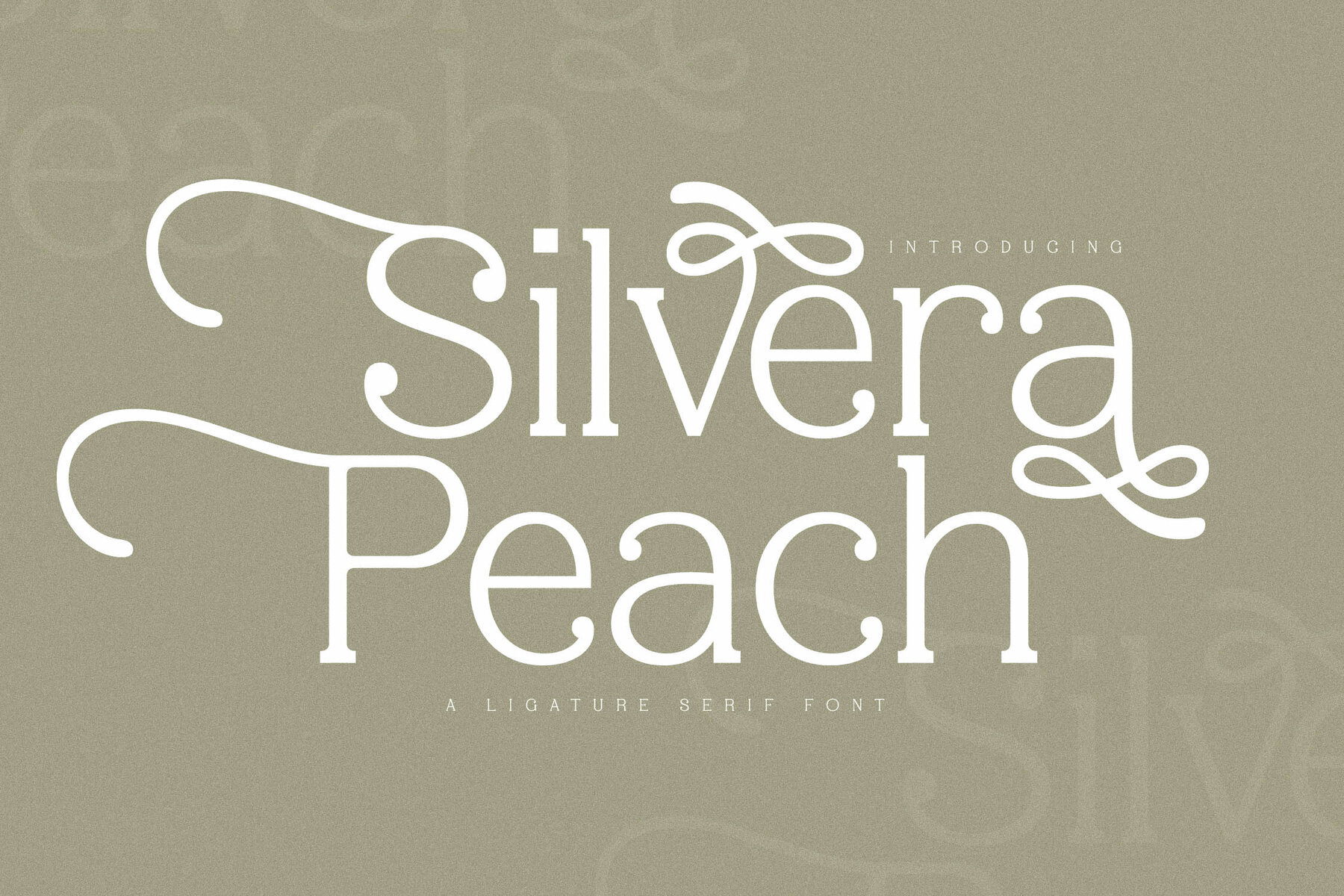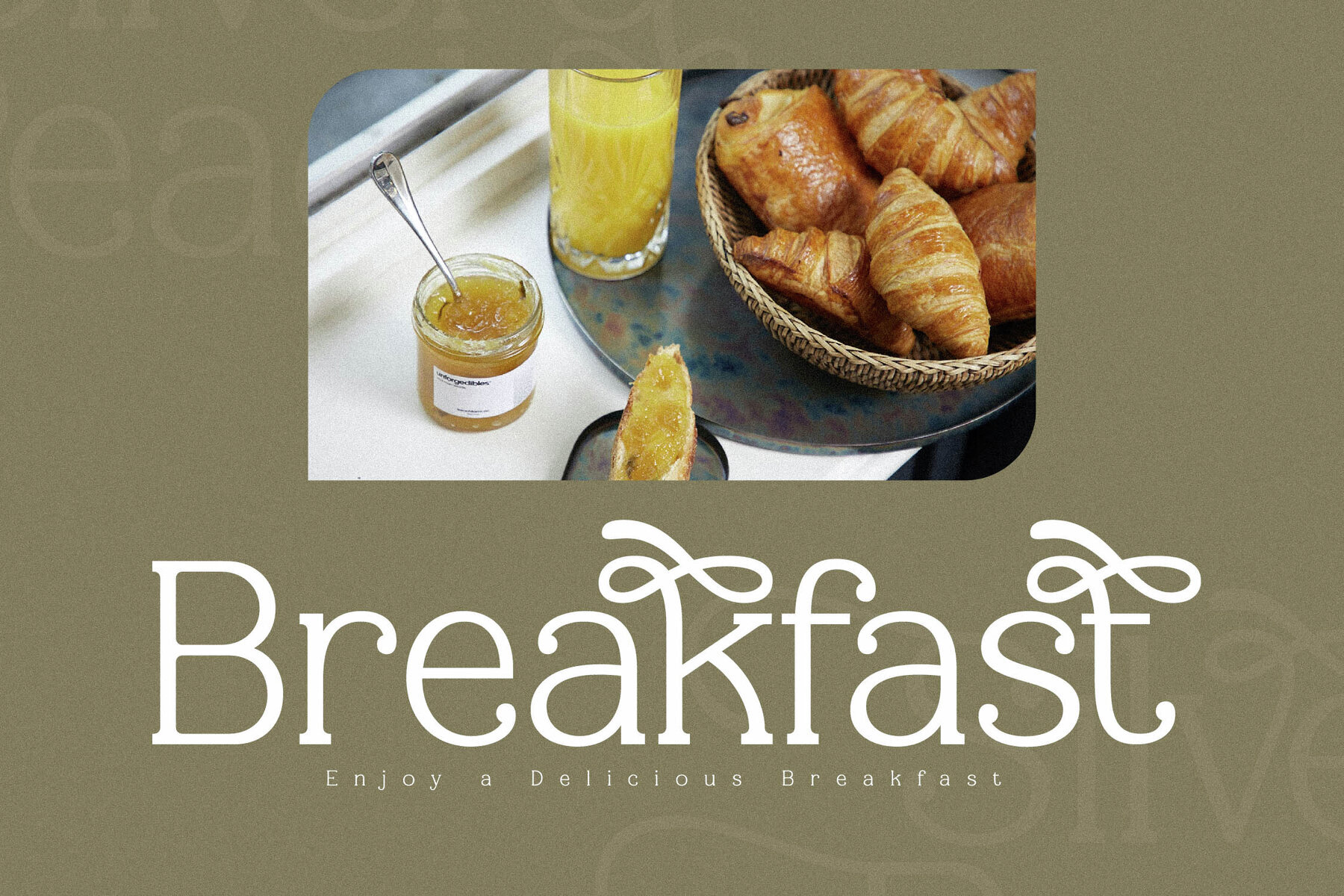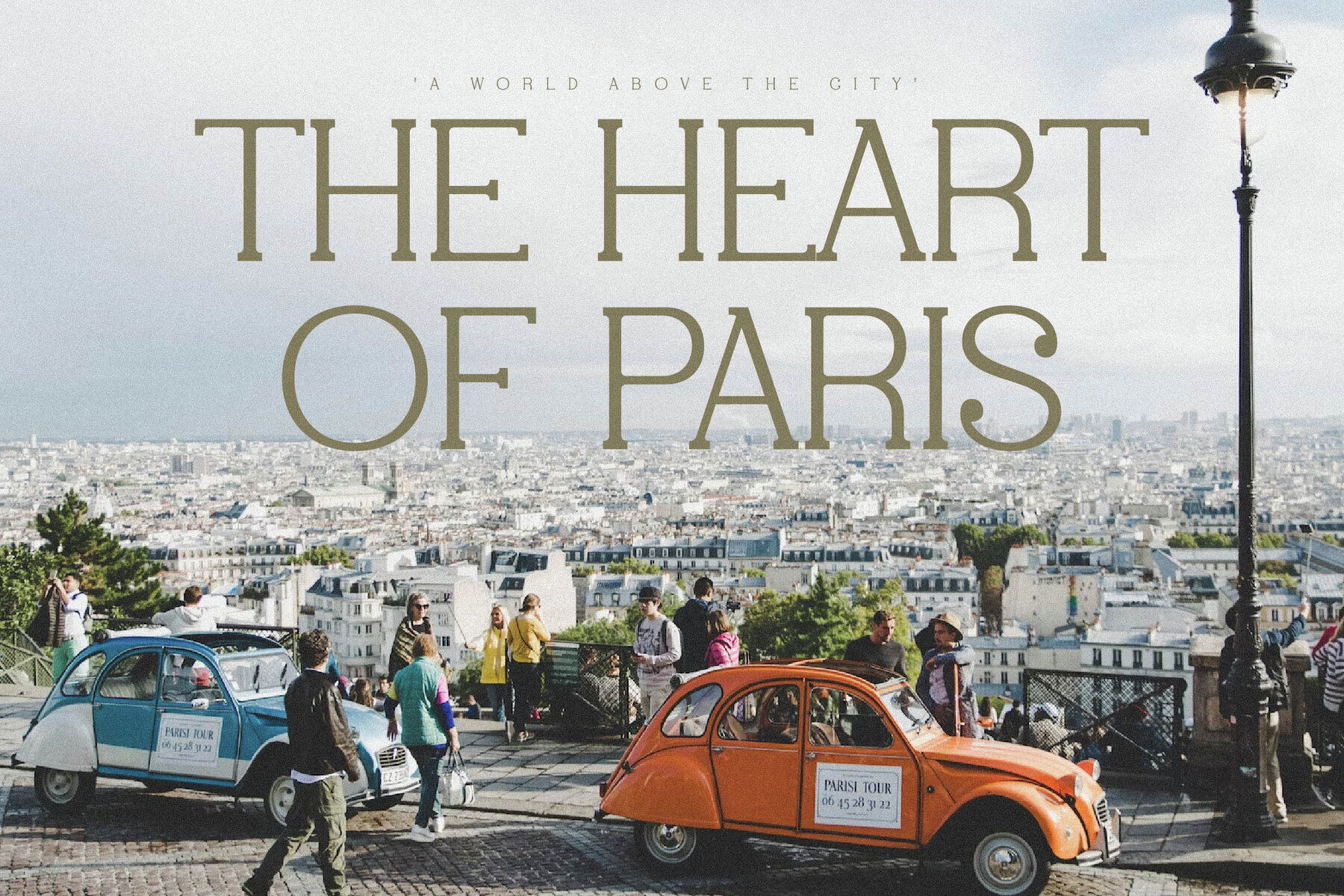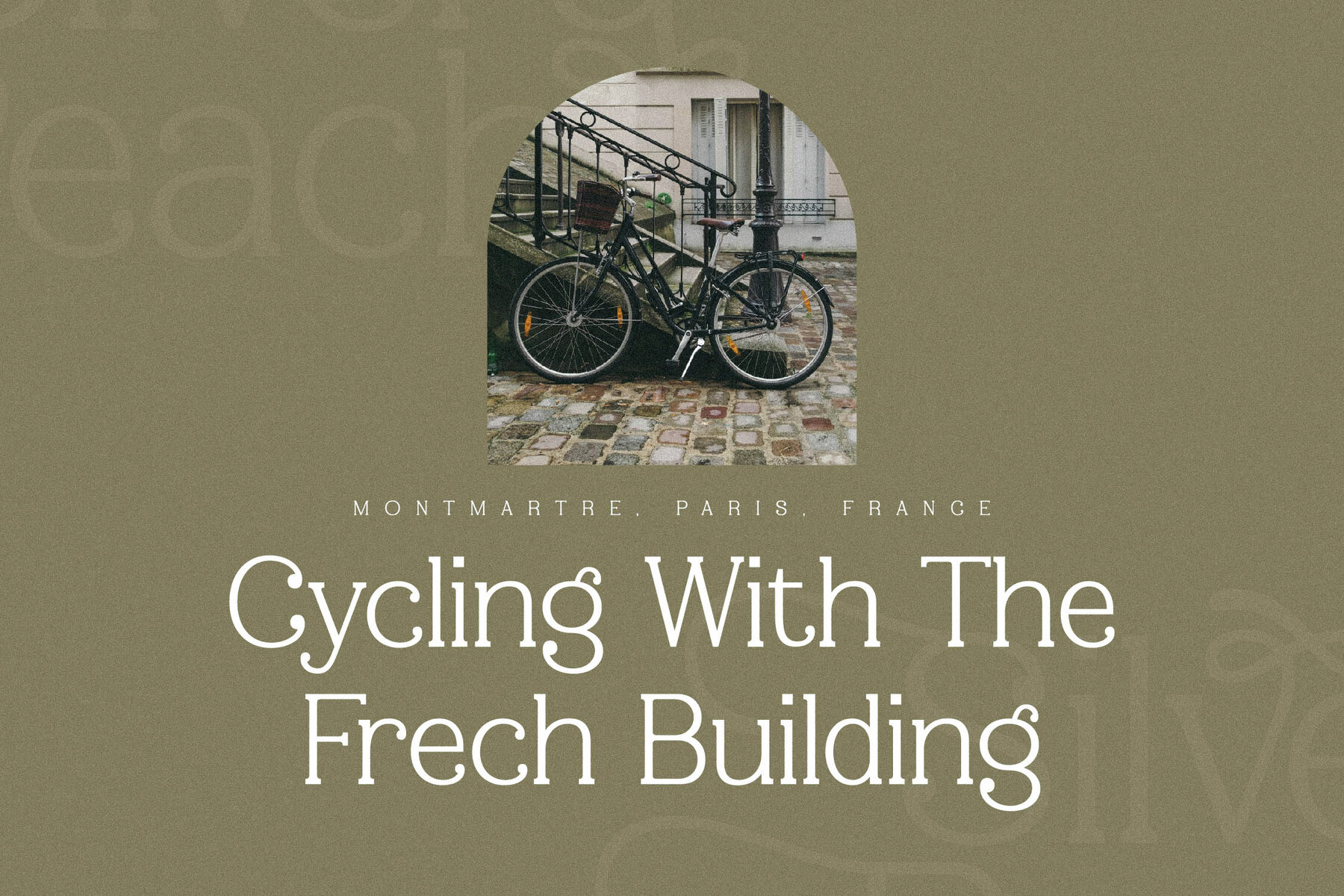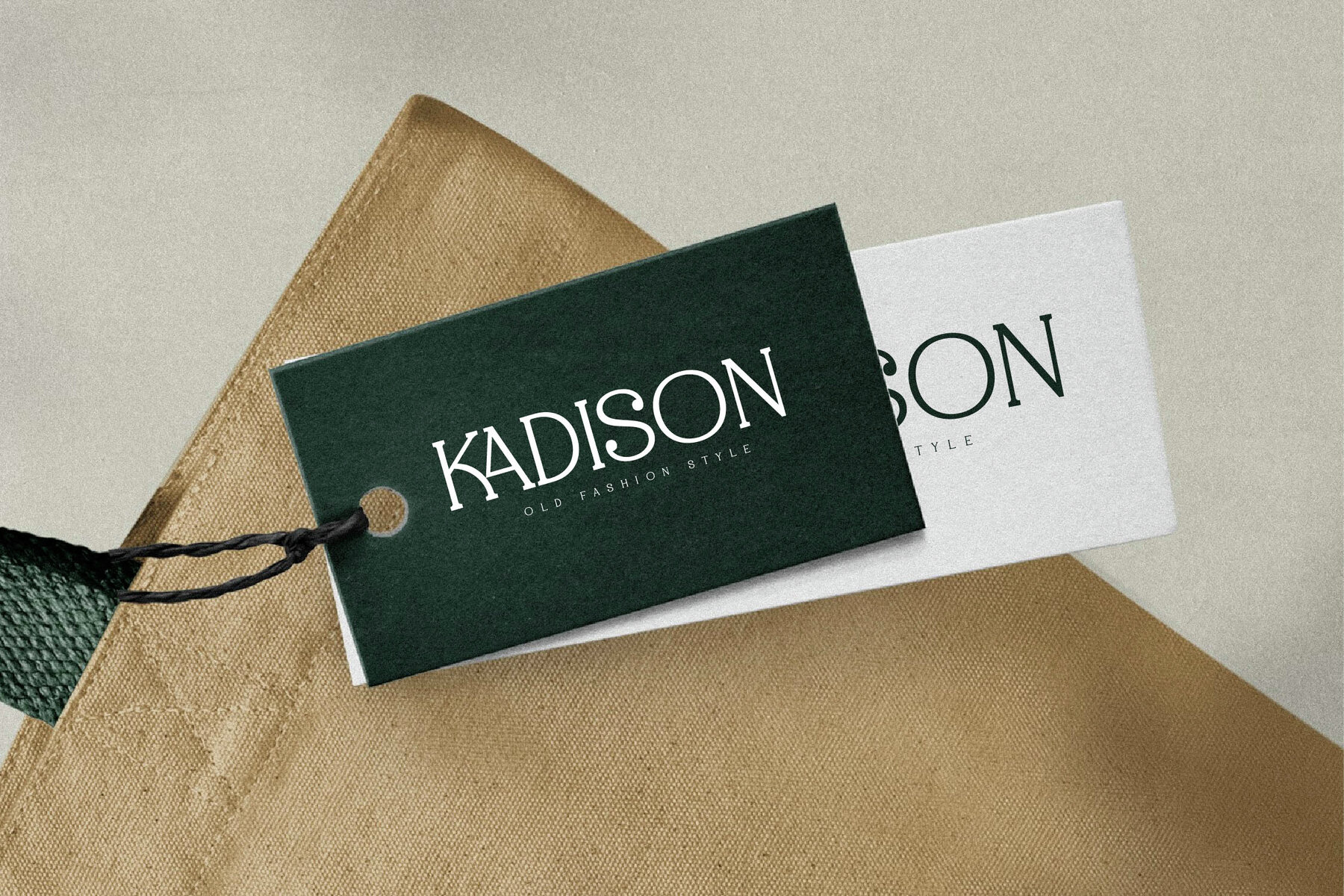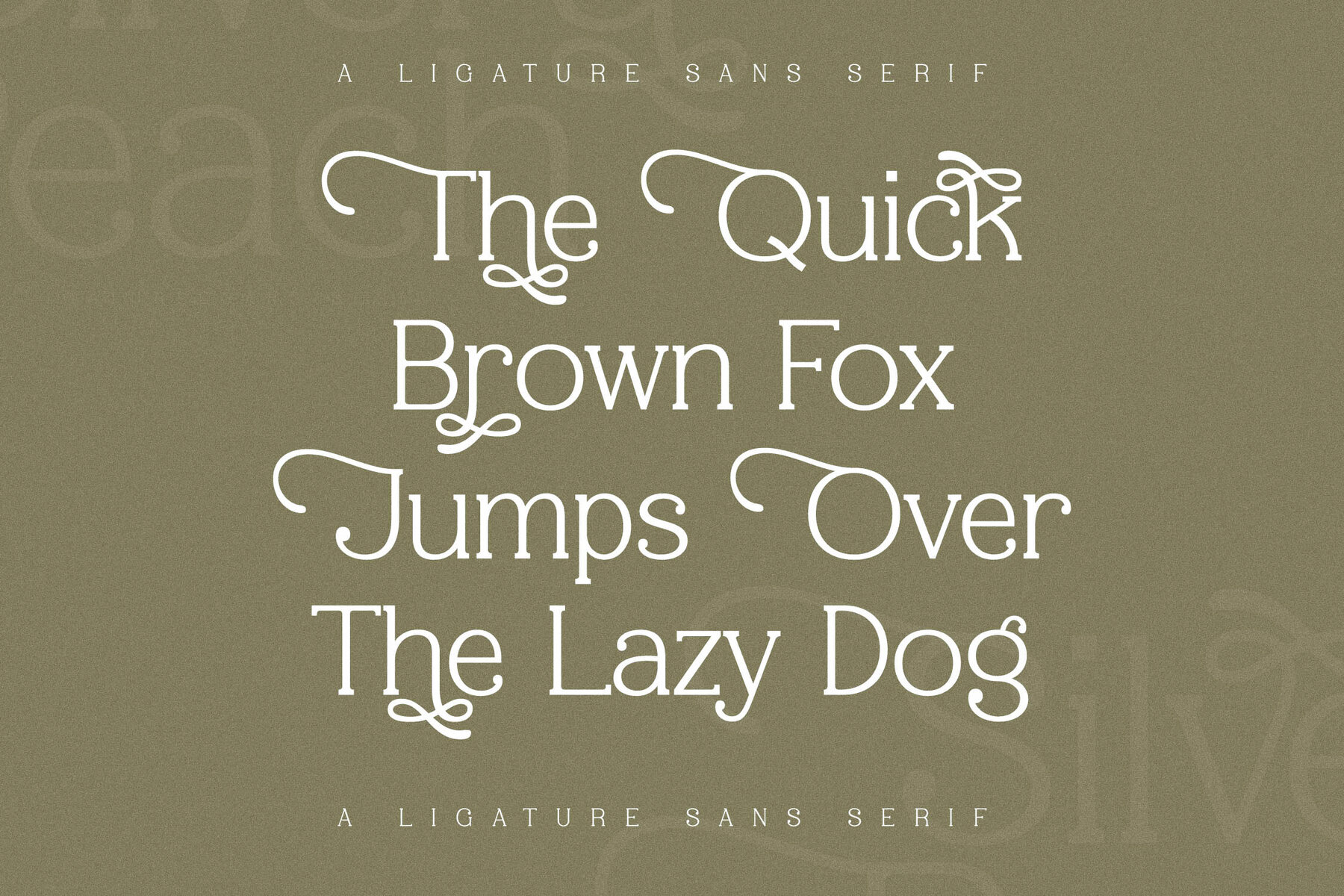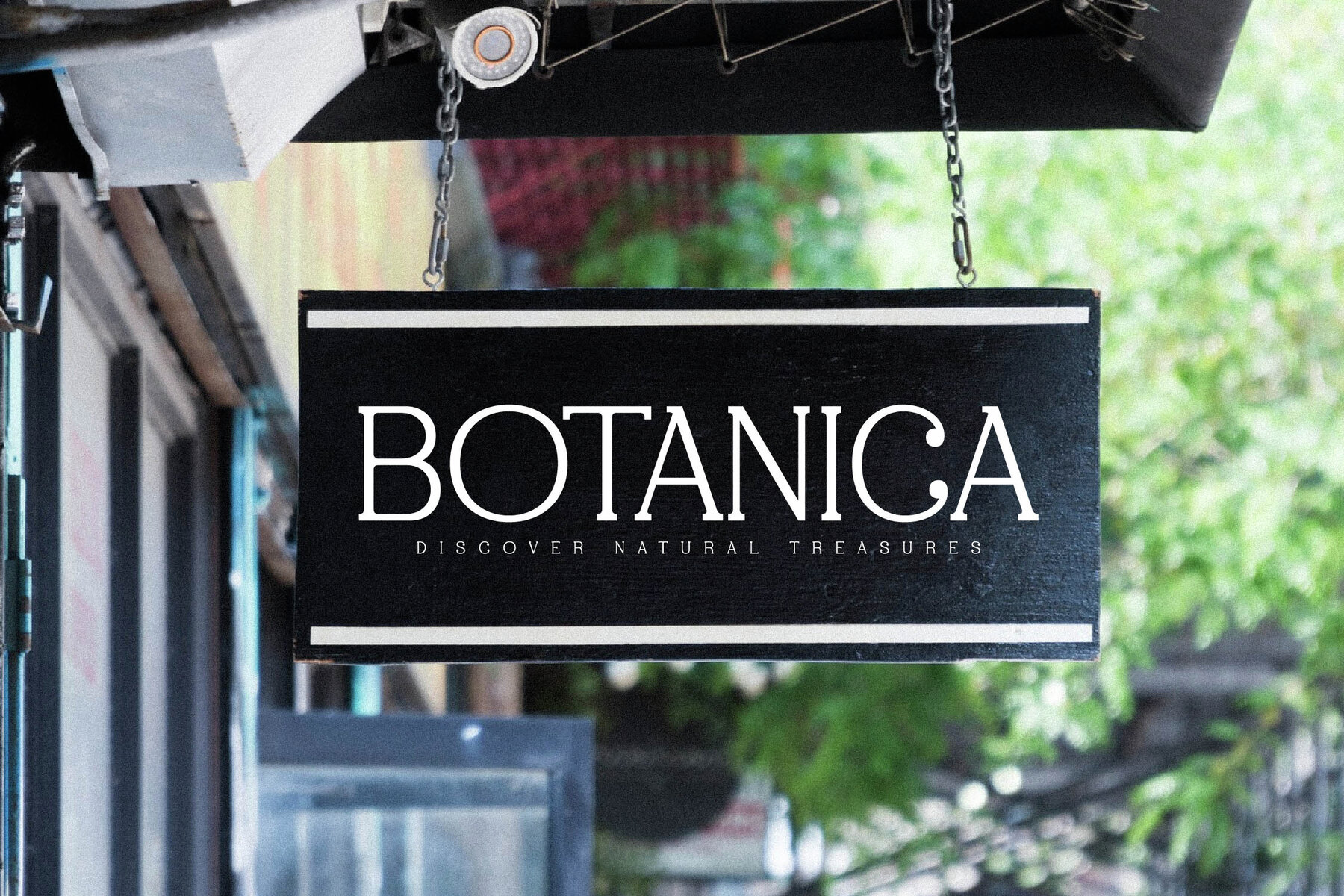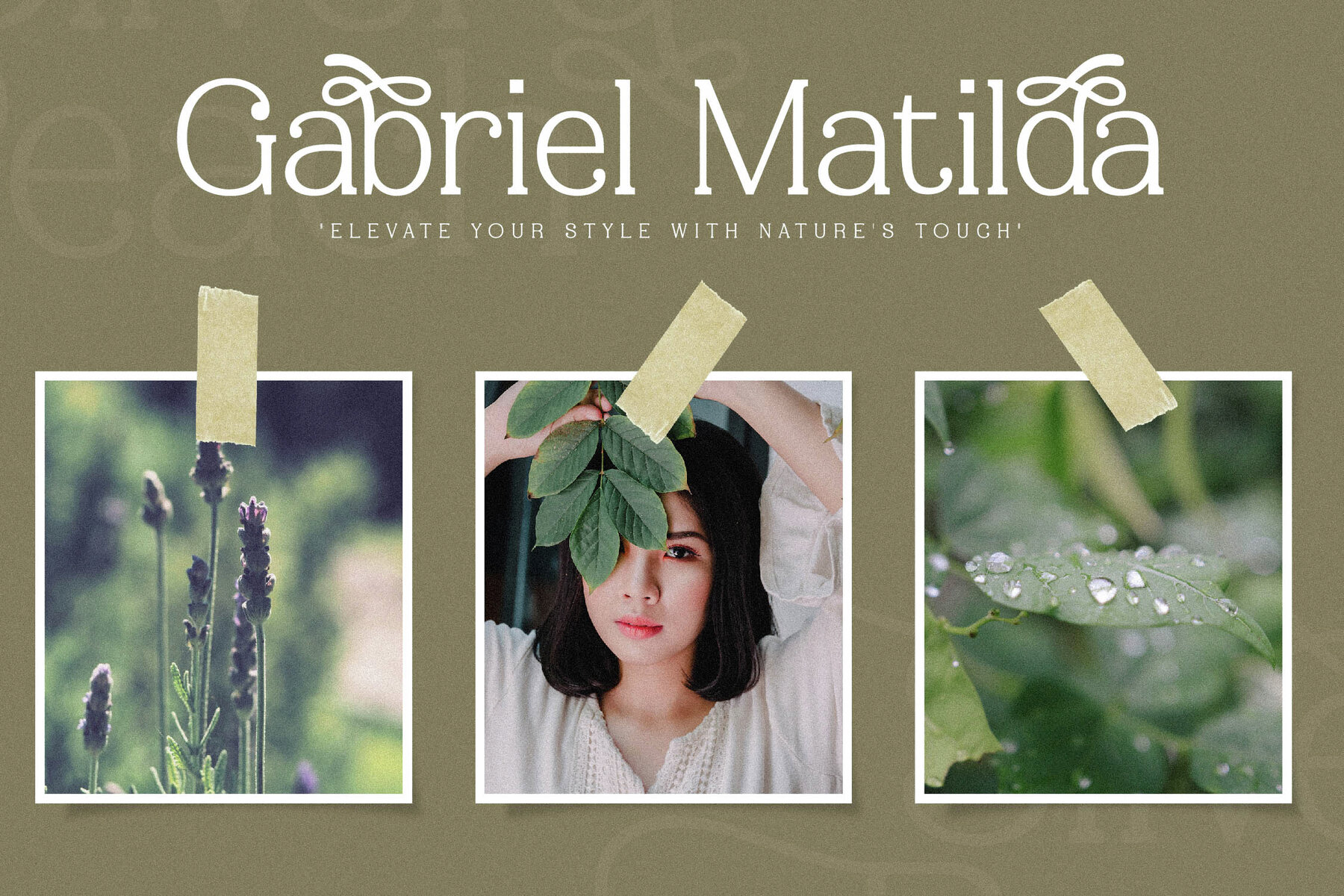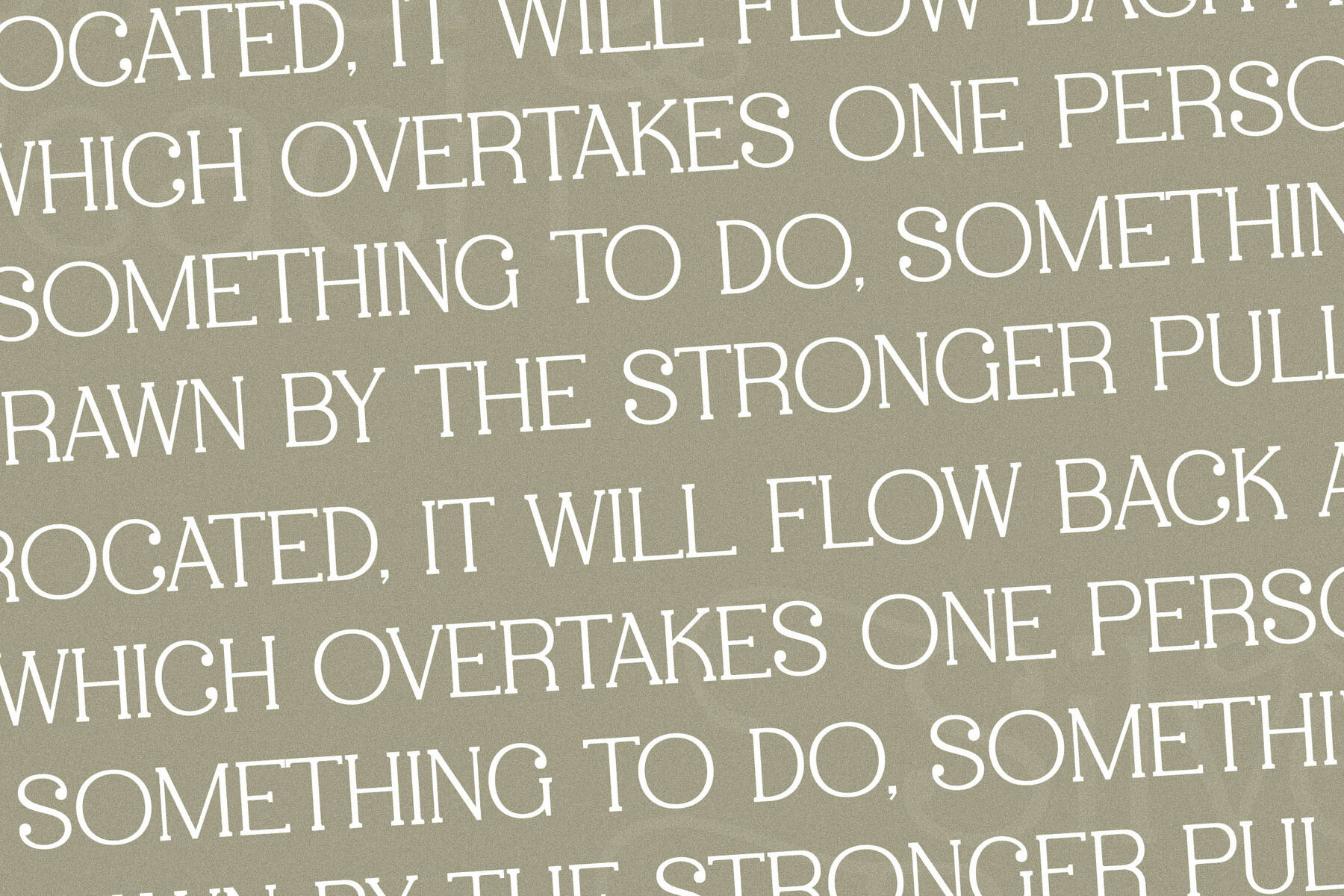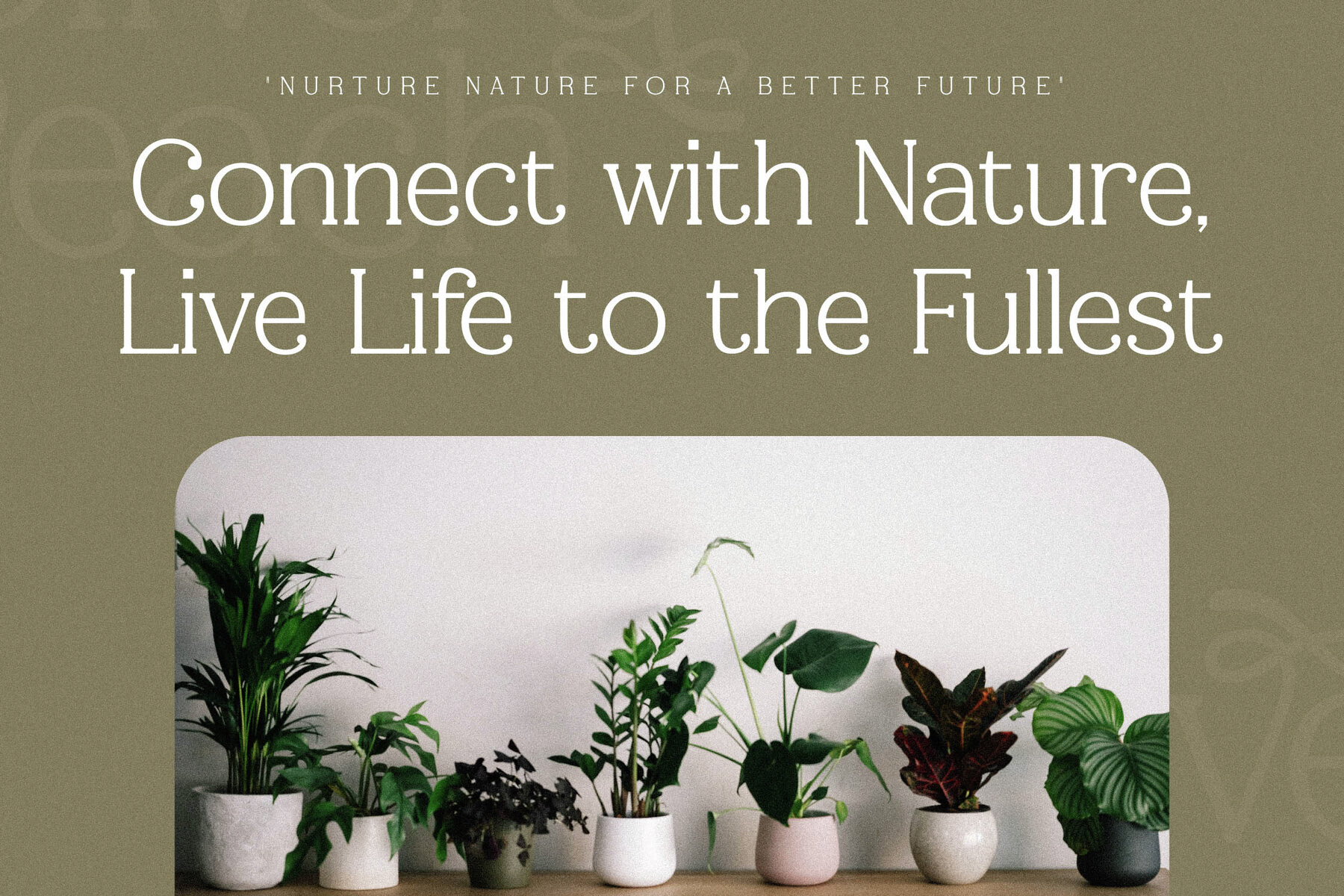
Silvera Peach Font
Introducing the Silvera Peach Typeface by Storytype Studio, a sophisticated blend of modern flair and classic charm. This serif typeface sets itself apart with its distinct style, perfect for high-end logo designs, book or movie titles, and fashion branding. Its versatility makes it ideal for use in magazines, clothing lines, eye-catching quotes, and much more.Silvera Peach Typeface